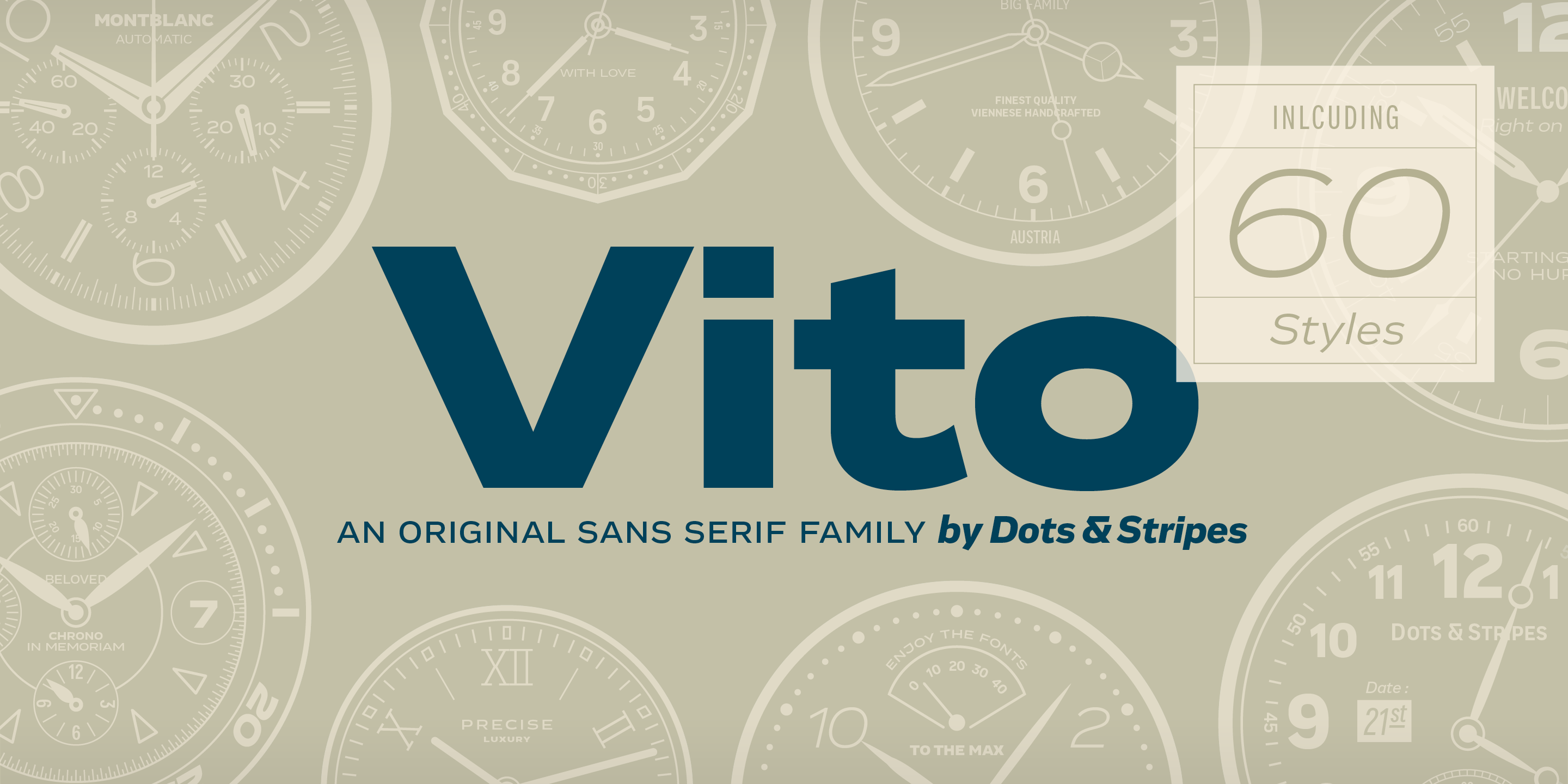
This charismatic display typeface is perfect for Italian restaurants, artisan food brands, wine labels, Mediterranean cuisine, fine dining establishments, gourmet packaging, culinary magazines, cooking shows, and passionate logo design.
Vito Font brings excitement to your design projects with its passionate character and Mediterranean warmth. This expressive display font features elegant letterforms with distinctive Italian flair that captures the essence of culinary artistry and cultural heritage, making it perfect for food brands that want to convey authenticity and passion. The font's sophisticated curves and warm personality create immediate emotional connection while ensuring excellent readability across all culinary applications.
The Vito Font family includes light, regular, and bold weights, providing designers with flavorful options for creating memorable food brand identities. Each weight maintains the font's signature warmth while offering different levels of visual intensity for various menu designs and gourmet marketing campaigns.
Infuse your brand with Italian passion using Vito Font Free Download today. This charismatic typeface combines cultural authenticity with culinary sophistication, making it essential for food industry communications that celebrate heritage and craftsmanship. Whether you're designing restaurant menus, creating gourmet product packaging, or developing culinary event materials, this font delivers passionate results with its warm character and Mediterranean soul.
The lovingly crafted letterforms ensure consistent warmth across all dining experiences. Download Vito Font now and add this passionate typography solution to your creative kitchen for projects that need to capture the heart and soul of authentic Italian culinary tradition.